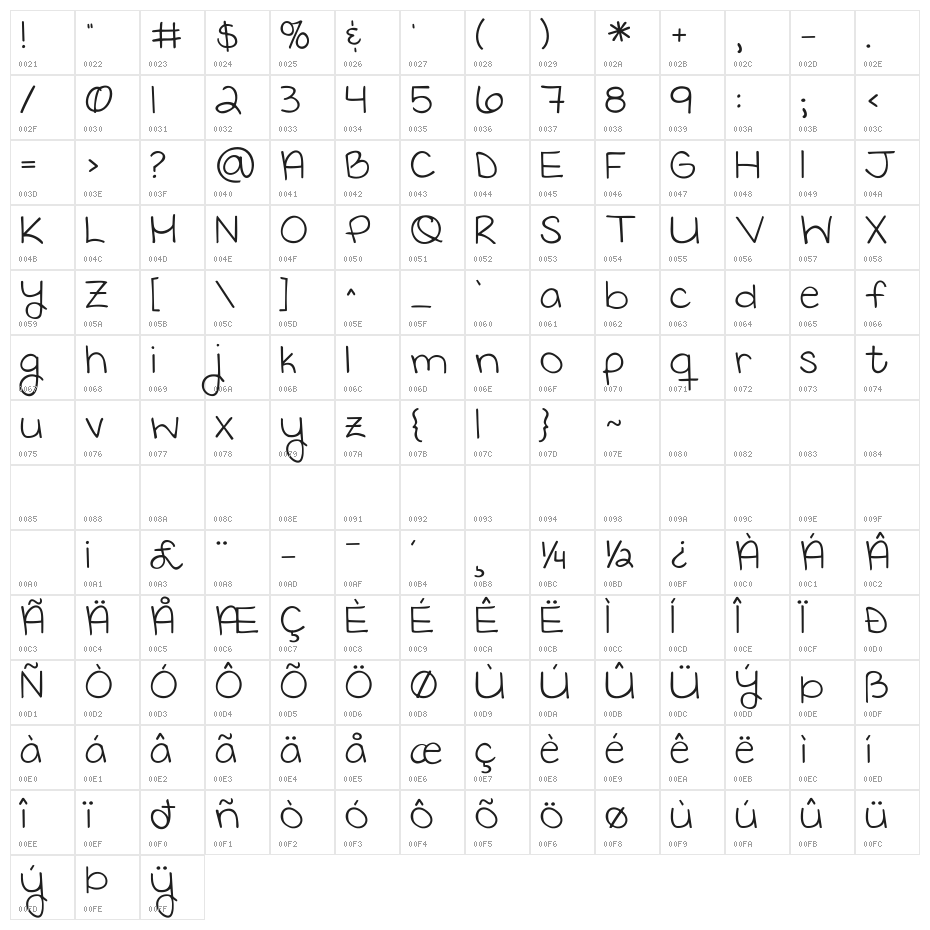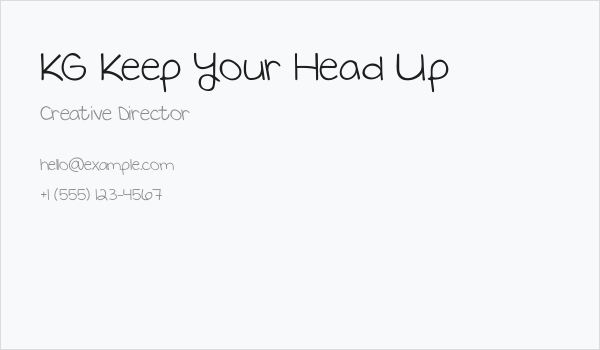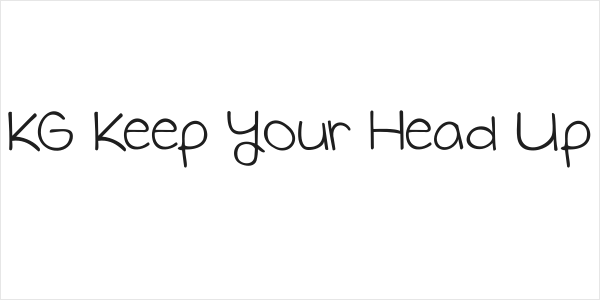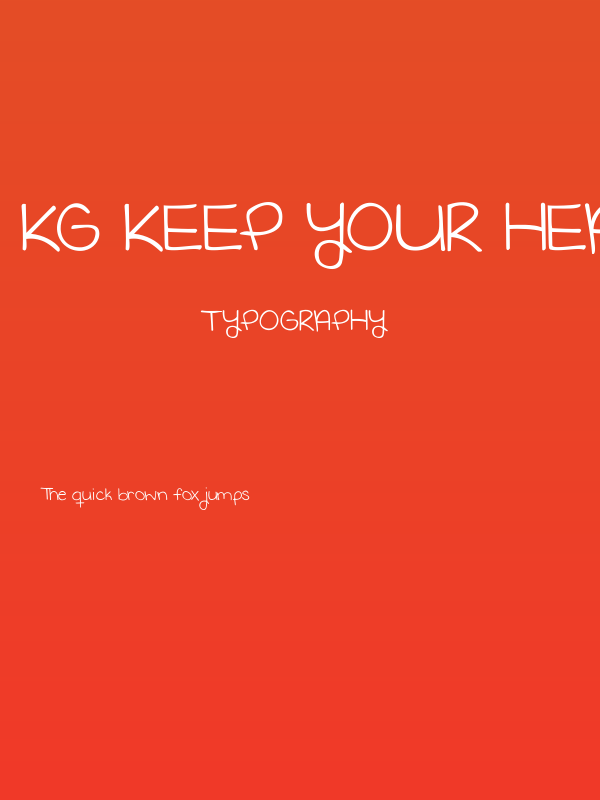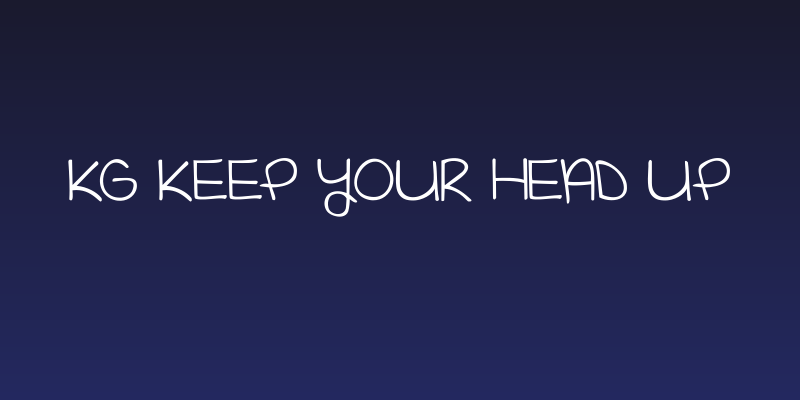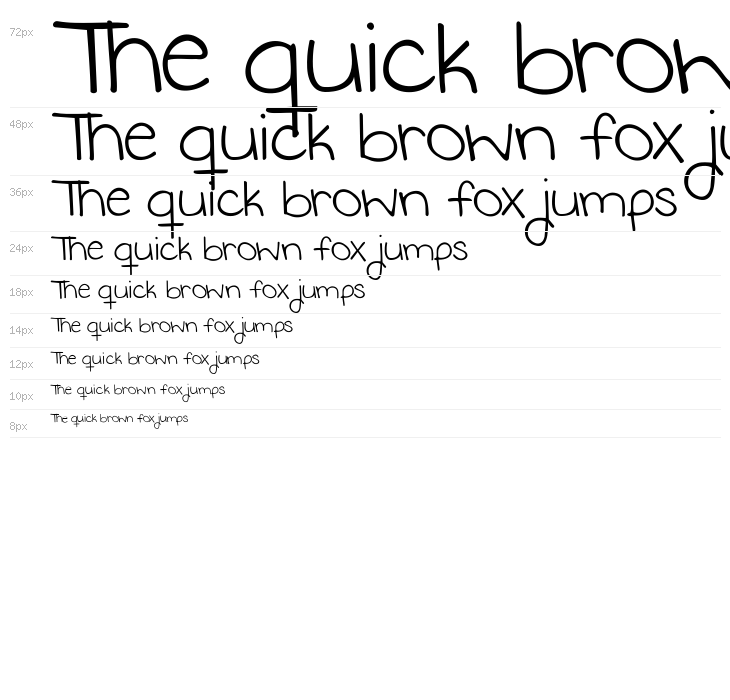
KG Keep Your Head Up Font
KG Keep Your Head Up Description
This playful and whimsical font features rounded, smooth lines that create a friendly and approachable appearance. The characters are slightly elongated with a consistent stroke width, giving it a casual and informal feel. The uppercase letters are bold and prominent, while the lowercase letters maintain a uniform height, enhancing readability. The numerals and special characters are designed with the same playful style, making them cohesive with the alphabet. This font exudes a sense of fun and creativity, perfect for projects that require a lighthearted touch.
Overall StylePlayful
Use CaseHeadlines, Logos, Informal Text
Proposed ProjectsIdeal for children's books, greeting cards, playful branding, and informal invitations.